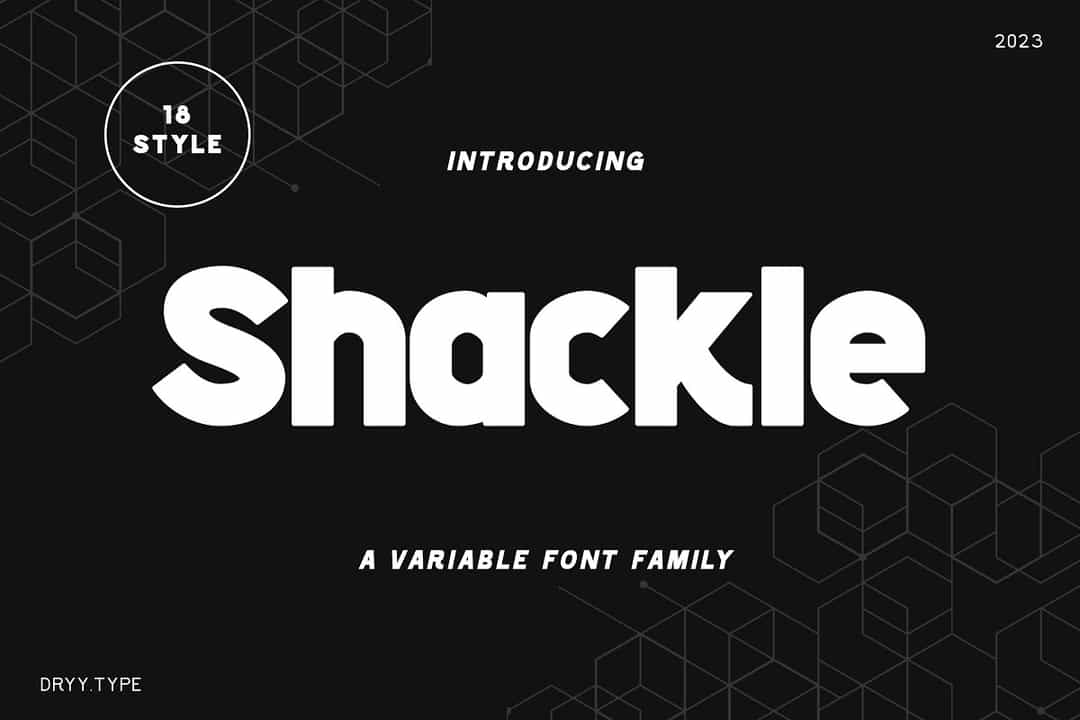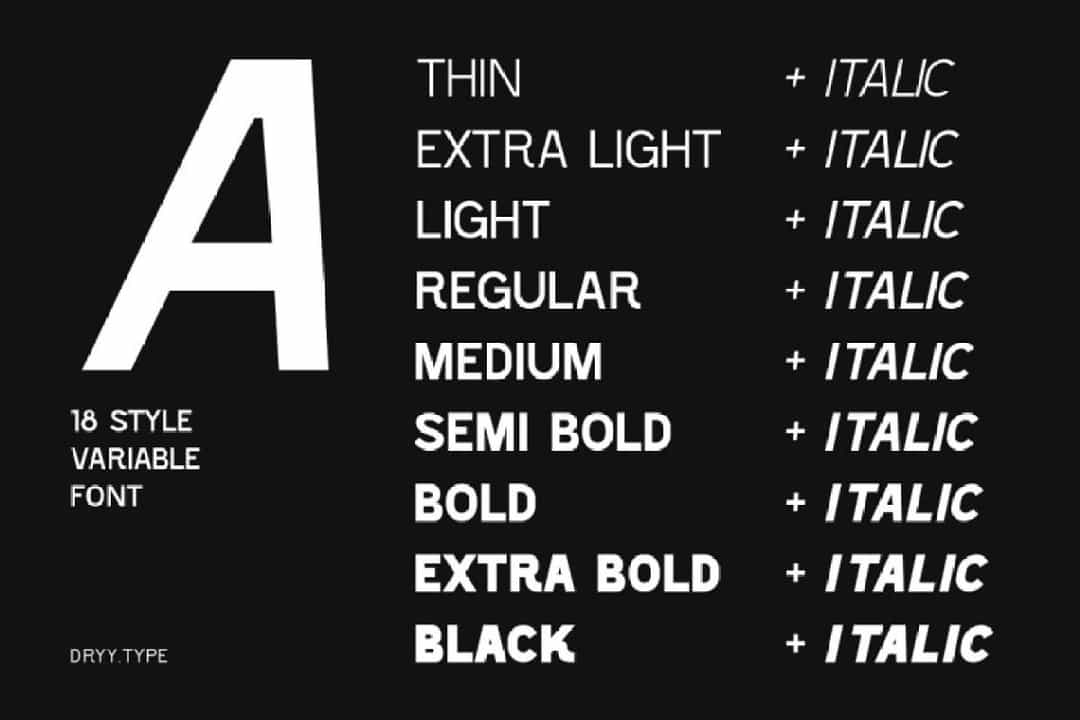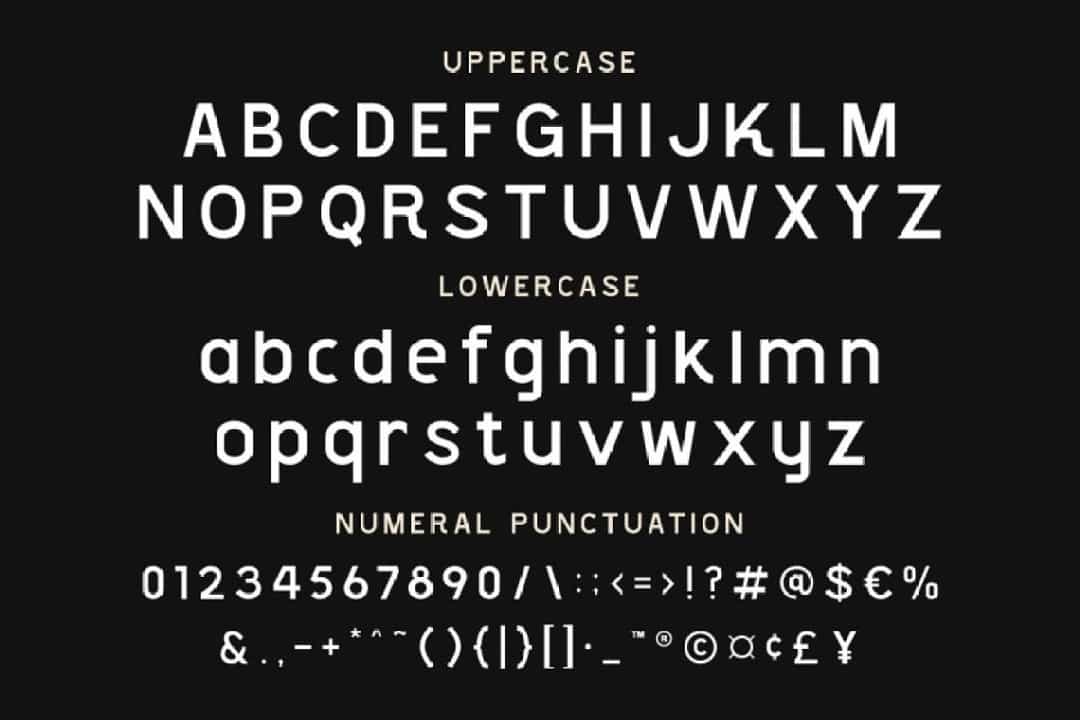
Shackle is a modern and elegant sans serif font designed to embody elegance and simplicity. Boasting its sleek and contemporary style, this font exudes sophistication and grace – perfect for web design, branding projects and other modern day projects. Furthermore, its versatility and timeless charm make Shackle an excellent option for creating an aesthetically pleasing appearance.